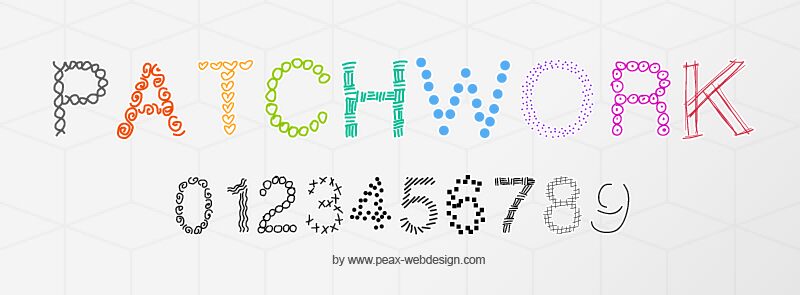
PW Patchwork by Peax Webdeign is a free decorative display font with a lively mix of stitched, dotted, striped, and looped letter patterns. Each capital receives its own surface treatment, but thin, hand-drawn outlines keep the alphabet related. The effect is cheerfully mismatched.
Textile patterns and craft illustrations can extend into its decorated letters, making it apt for sewing-event posters and handmade product packaging. Its patchwork approach also suits children's activity books, classroom materials, and playful merchandise.